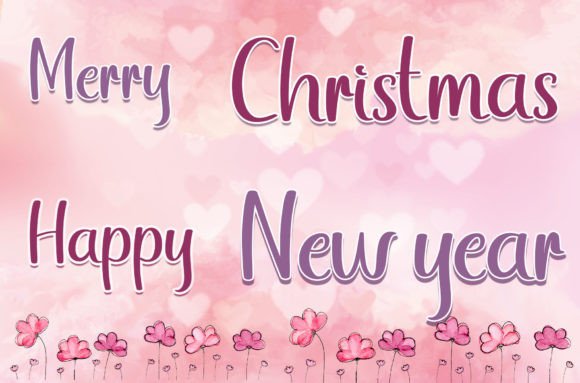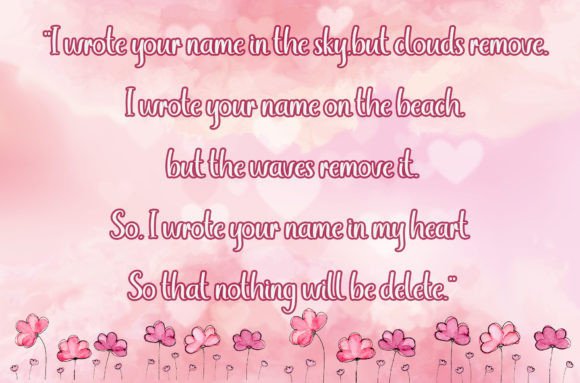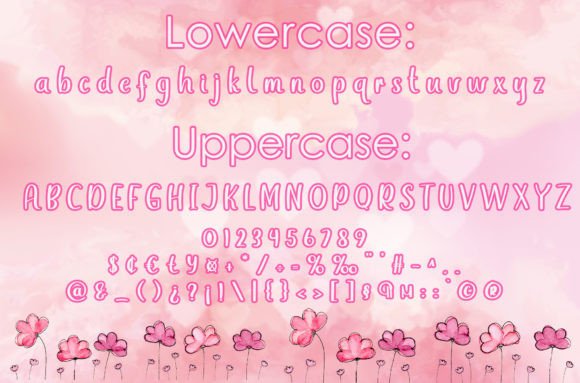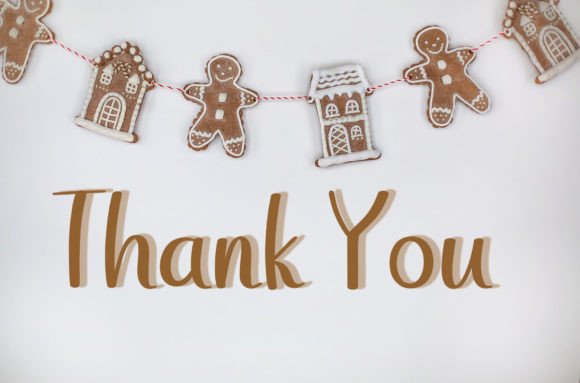
Introduction to Preety in Heart Font Font
Fonts play a crucial role in design, and the Preety in Heart Font font is a typeface that brings both character and versatility to any project. Whether you’re working on a branding project, a website, or a print design, the Preety in Heart Font font offers a unique style that can elevate your work.
Preety in Heart is a cute and simple-lettered handwritten font perfect for all the chalkboard quotes and teaching materials you wish to create.
Its authentic look will add a personal and realistic feel to your designs .
The Preety in Heart Font font is more than just a typeface – it’s a design tool that helps you communicate your message with style and clarity. Its unique character set and versatile design make it suitable for a wide range of applications, from elegant invitations to bold headlines.
With its carefully crafted letterforms and balanced proportions, the Preety in Heart Font font ensures readability and visual appeal across all mediums.
The Preety in Heart Font font stands out with its unique design, exceptional readability, and versatility across various design applications.